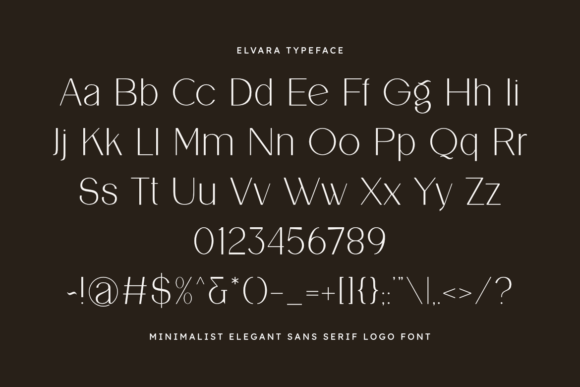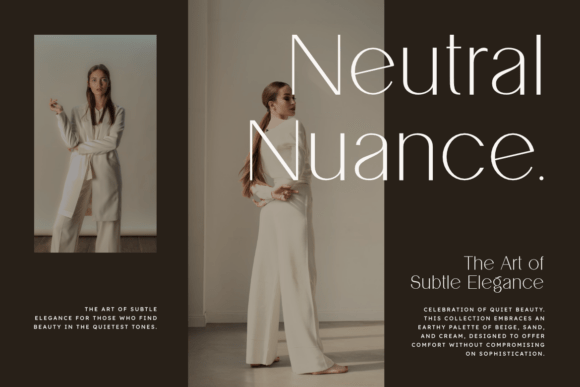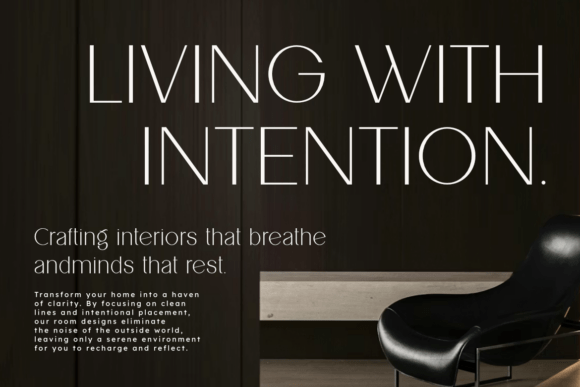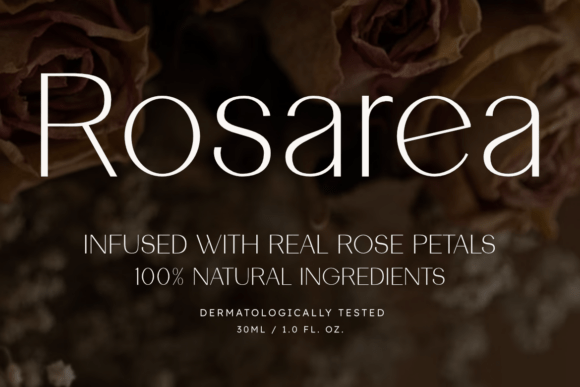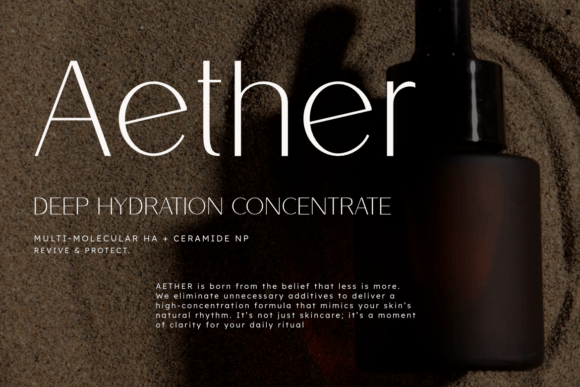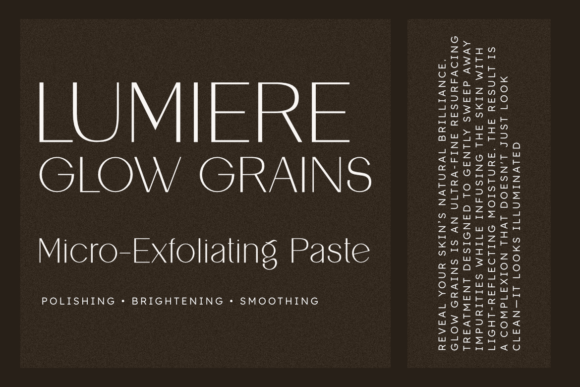
Introducing Elvara Font: The Epitome of Modern Luxury
In the realm of typography, fonts play a pivotal role in defining the aesthetic and tone of a brand, product, or editorial content. Among the myriad of typefaces available, Elvara Font stands out as a beacon of modern luxury, embodying the essence of sophistication through its minimalist and airy design. This article delves into the intricacies of Elvara, exploring its design characteristics, versatility, and the unique value it offers to designers and crafters seeking to elevate their projects.
The Design Philosophy of Elvara
Elvara is a sophisticated sans serif typeface meticulously crafted with a focus on clean lines and refined proportions. Its design philosophy revolves around the concept of “quiet luxury,” where the emphasis is on subtlety and elegance rather than overt ornamentation. This approach allows Elvara to convey a sense of high-end quality and sophistication, making it an ideal choice for creating luxurious brand identities, sleek logos, and professional editorial layouts.
Key Features of Elvara Font
- Minimalist and Airy Design: Elvara’s design is characterized by its minimalist and airy aesthetic, which lends itself to a modern and luxurious feel.
- Clean Lines and Refined Proportions: The font’s clean lines and refined proportions contribute to its sophisticated appearance, making it suitable for high-end applications.
- Unique Character Details: Elvara features subtle character details that provide a distinct personality without detracting from its minimalist core.
- Lightweight Structure: The font’s lightweight structure is perfect for achieving a polished, “quiet luxury” aesthetic in creative projects.
Applications of Elvara Font
Elvara’s versatility makes it a valuable asset for a wide range of applications, including:
- Brand Identities: Elvara is perfect for creating high-end brand identities that exude sophistication and luxury.
- Logos: The font’s sleek and modern design makes it an excellent choice for crafting sleek and memorable logos.
- Editorial Layouts: Elvara’s refined proportions and clean lines make it suitable for professional editorial layouts, including magazines, newspapers, and digital publications.
Elvara offers numerous benefits for designers and crafters seeking to elevate their projects:
- Enhanced Visual Appeal: Elvara’s sophisticated design enhances the visual appeal of any project, making it more engaging and luxurious.
- Improved Readability: The font’s clean lines and refined proportions improve readability, ensuring that the message is conveyed effectively.
- Versatility: Elvara’s versatility allows it to be used across various applications, making it a valuable addition to any designer’s toolkit.
In conclusion, Elvara Font is a sophisticated sans serif typeface that embodies the essence of modern luxury through its minimalist and airy design. Its unique character details, lightweight structure, and versatility make it an ideal choice for designers and crafters seeking to create high-end brand identities, sleek logos, and professional editorial layouts. By incorporating Elvara into their projects, designers can elevate their work and achieve a polished, “quiet luxury” aesthetic that resonates with their audience.